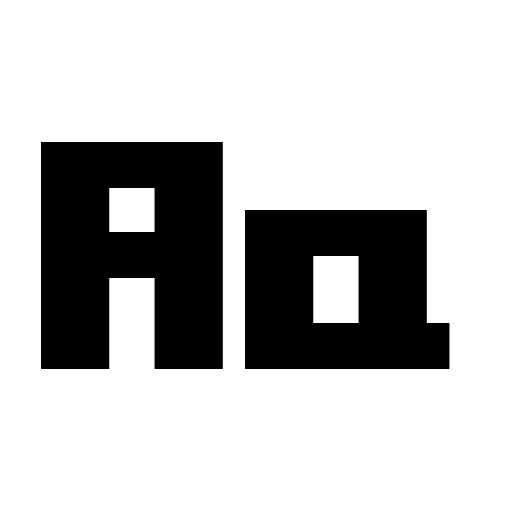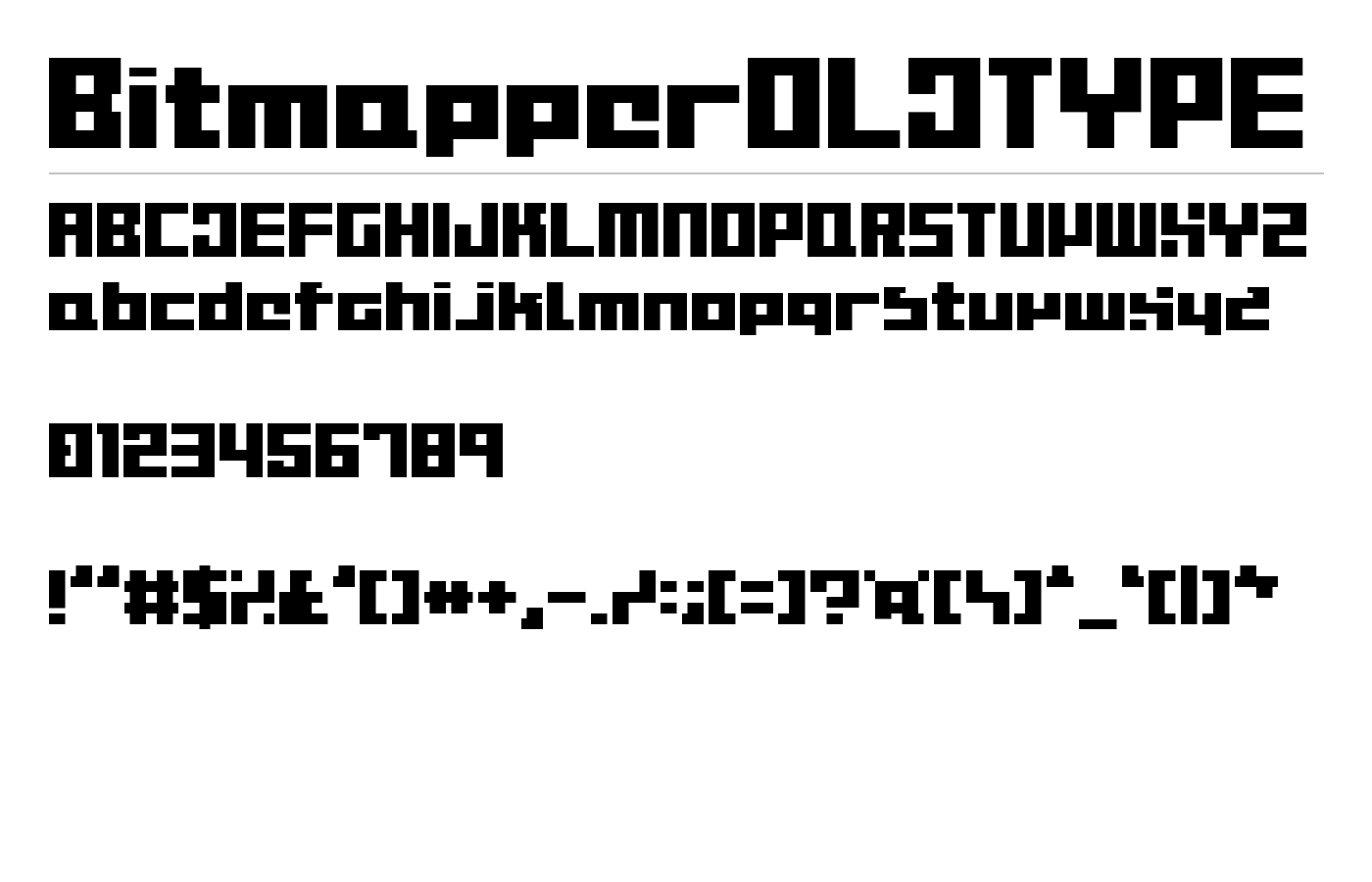
BitmapperOLDTYPE is a bold, geometric, sans-serif font with a distinctive pixelated style that evokes a retro digital or video game aesthetic. Its blocky letterforms and consistent stroke weight create a strong, technical feel, making it ideal for projects that require a vintage computer or arcade vibe. This font works best for headlines, logos, and creative digital designs where a nostalgic yet modern tech look is desired.
BitmapperOLDTYPE Font
About BitmapperOLDTYPE Font